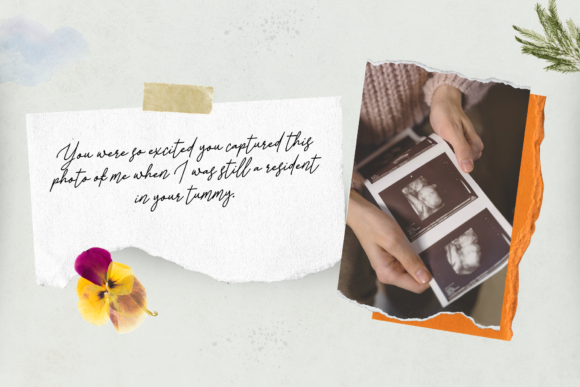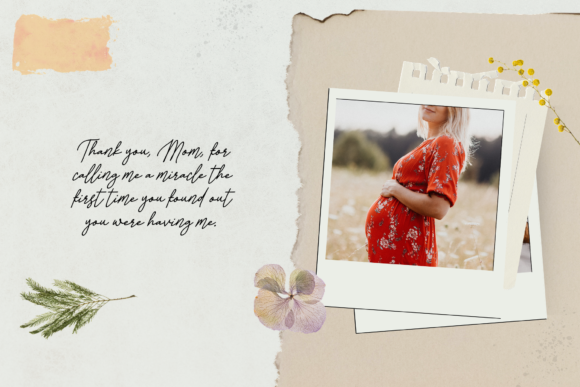
Pregnancy Journey Font
db-ku.com - Script & Handwritten -- Pregnancy Journey is a delicate and flowing script font. It is suitable for any branding project like logos, t-shirt printing, sport designs, and more. It will look outstanding in a wide range of contexts.